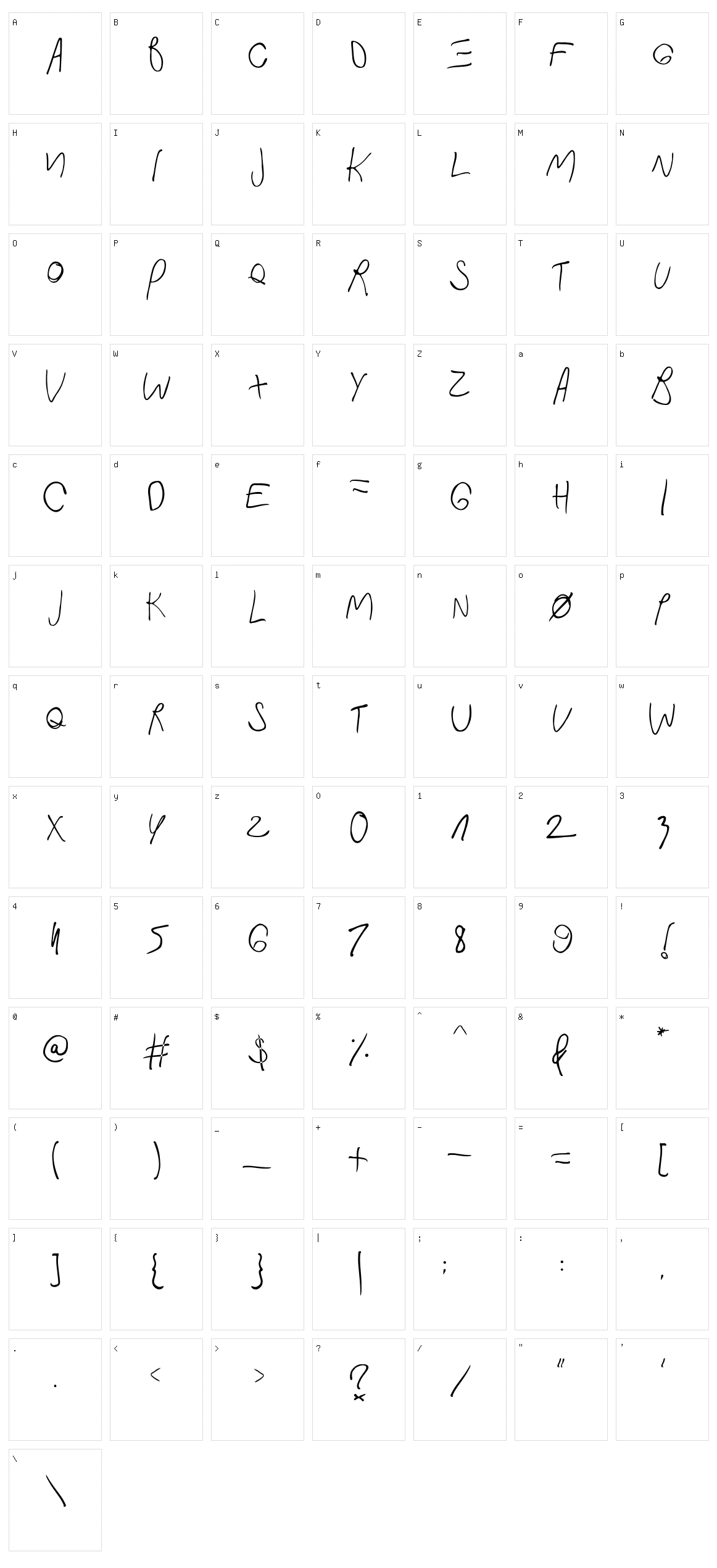
The free font Fast In My Car is carefully designed by Erik Reys, showcasing a thoughtful balance of creativity and usability and falls under the Script font style. When you download the ZIP file, it contains only 26.69 KB of font files, making it lightweight and quick to download. Please review the license details below to understand permitted usage and distribution rights. If license information is not available, we recommend using this font for personal projects only or contacting the author directly for commercial usage permissions.